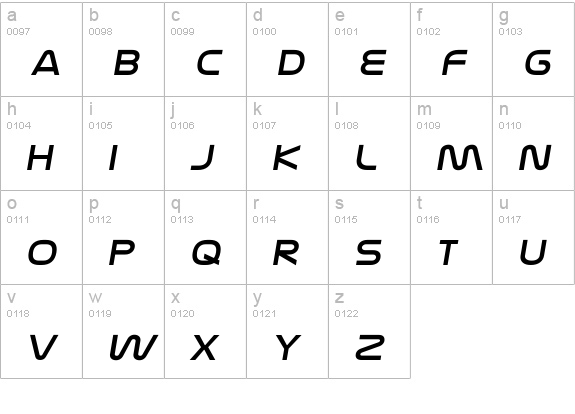
Nasalization Extended Italic Font Details
Nasalization Extended Italic is a distinctive, extended-width, italic variant in the Nasalization typeface family \xE2\x80\x94 well suited to design and typography projects.
Nasalization Extended Italic font is a sleek and modern typeface that exudes sophistication and elegance. Its italicized design adds a touch of flair and drama, making it perfect for adding a touch of style to any project. The extended letterforms give this font a unique and eye-catching look that is sure to make a statement. Whether you're designing a logo, poster, or website, Nasalization Extended Italic font will bring a sense of contemporary chic to your work. Best of all, Nasalization Extended Italic font is available for free download at FontsMarket.com. This means you can easily access this stunning font and start using it in your projects right away. Don't miss out on this fantastic opportunity to elevate your designs with the Nasalization Extended Italic font - download it today and see the difference it can make!